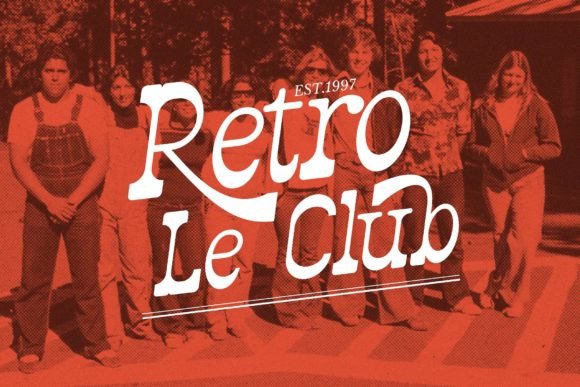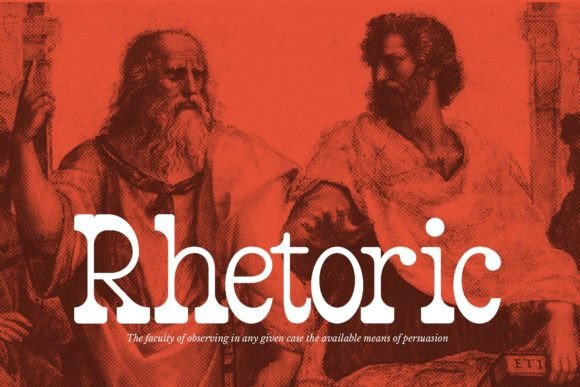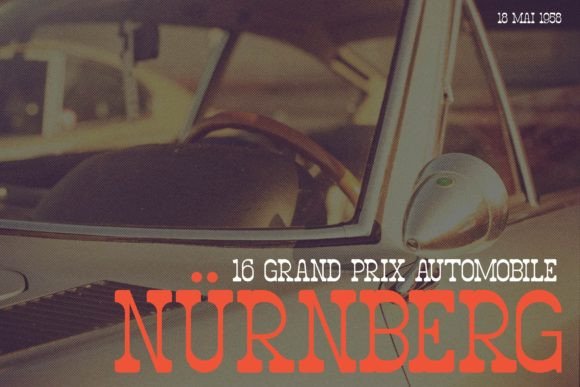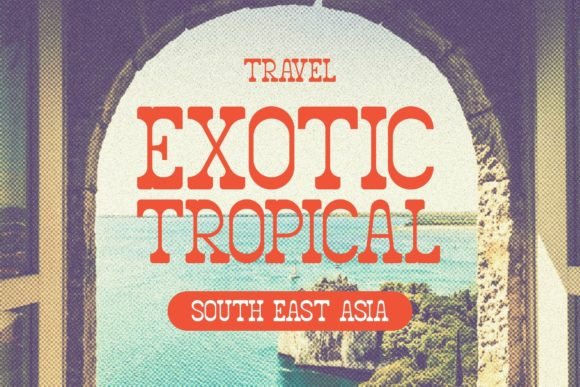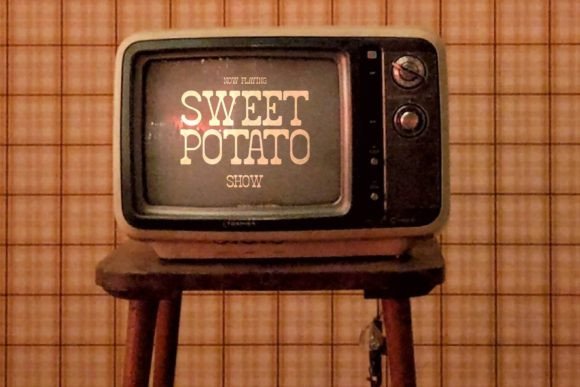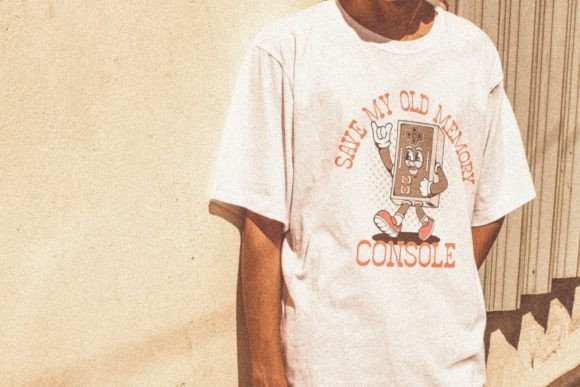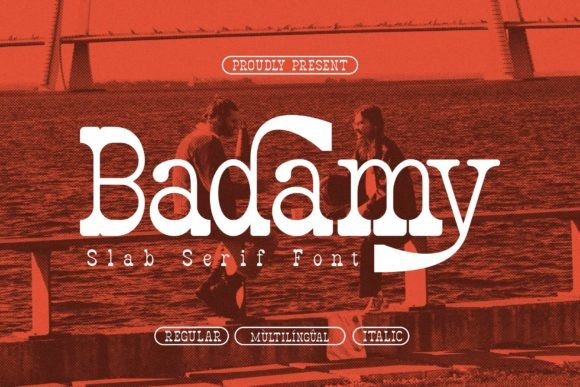
Discover the Unique Charm of Badamy Font: A Slab Serif Marvel
Are you a designer or crafter looking for a font that combines classic elegance with modern flair? Look no further than Badamy, a stunning slab serif font that’s perfect for headlines, titles, and more. In this article, we’ll dive into the world of Badamy font, exploring its characteristics, uses, and benefits for creative professionals.
What is Badamy Font?
Badamy is a type of slab serif font, distinguished by its thick, block-like serifs that add a touch of ruggedness and sophistication to any text. The font’s bold, sturdy appearance makes it an excellent choice for headlines, titles, and other display text, where visual impact is crucial.
Characteristics of Badamy Font
So, what sets Badamy font apart from other slab serif fonts? Here are some key characteristics that make it a standout:
- Thick, block-like serifs: Badamy’s serifs are bold and substantial, giving the font its distinctive look and feel.
- Classic, vintage feel: The font’s slab serif design evokes a sense of nostalgia and timelessness, perfect for projects that require a touch of classic elegance.
- Modern touch: Despite its vintage roots, Badamy font has a modern edge that makes it suitable for contemporary designs and projects.
- High legibility: The font’s clear, sturdy lines ensure that text remains readable, even at smaller sizes.
Uses for Badamy Font
Badamy font is incredibly versatile, making it suitable for a wide range of design projects and applications. Here are some popular uses for this amazing font:
- Headlines and titles: Badamy’s bold, eye-catching design makes it perfect for grabbing attention and adding visual interest to headlines and titles.
- Logos and branding: The font’s unique blend of classic and modern elements makes it an excellent choice for logos and branding projects that require a distinctive look.
- Posters and flyers: Badamy font is well-suited for print materials like posters and flyers, where its bold design can help grab attention and communicate key messages.
- Digital displays: The font’s clear, legible design also makes it suitable for digital displays, such as website headers, social media graphics, and more.
So, what benefits does Badamy font offer designers and crafters? Here are a few key advantages:
- Unique visual identity: Badamy font’s distinctive design helps create a unique visual identity for projects, setting them apart from more generic or common fonts.
- Flexibility: The font’s versatility makes it suitable for a wide range of design projects and applications.
- Easy to read: Badamy font’s clear, legible design ensures that text remains easy to read, even at smaller sizes or from a distance.
- Time-saving: With Badamy font, designers and crafters can quickly create visually appealing text without sacrificing style or legibility.
Tips for Using Badamy Font
To get the most out of Badamy font, here are a few tips to keep in mind:
- Use it sparingly: Badamy font’s bold design can be overwhelming if overused. Use it sparingly to create visual interest and emphasize key messages.
- Pair it with complementary fonts: Combine Badamy font with complementary fonts to create visual contrast and add depth to your design.
- Experiment with colors and textures: Don’t be afraid to experiment with different colors and textures to add an extra layer of visual interest to your design.
Badamy font is a slab serif marvel that offers a unique blend of classic elegance and modern flair. With its bold, sturdy design and high legibility, it’s perfect for designers and crafters looking to add visual interest and emphasis to their projects. Whether you’re creating headlines, titles, logos, or other display text, Badamy font is an excellent choice. So why not give it a try and discover the unique charm of Badamy font for yourself?